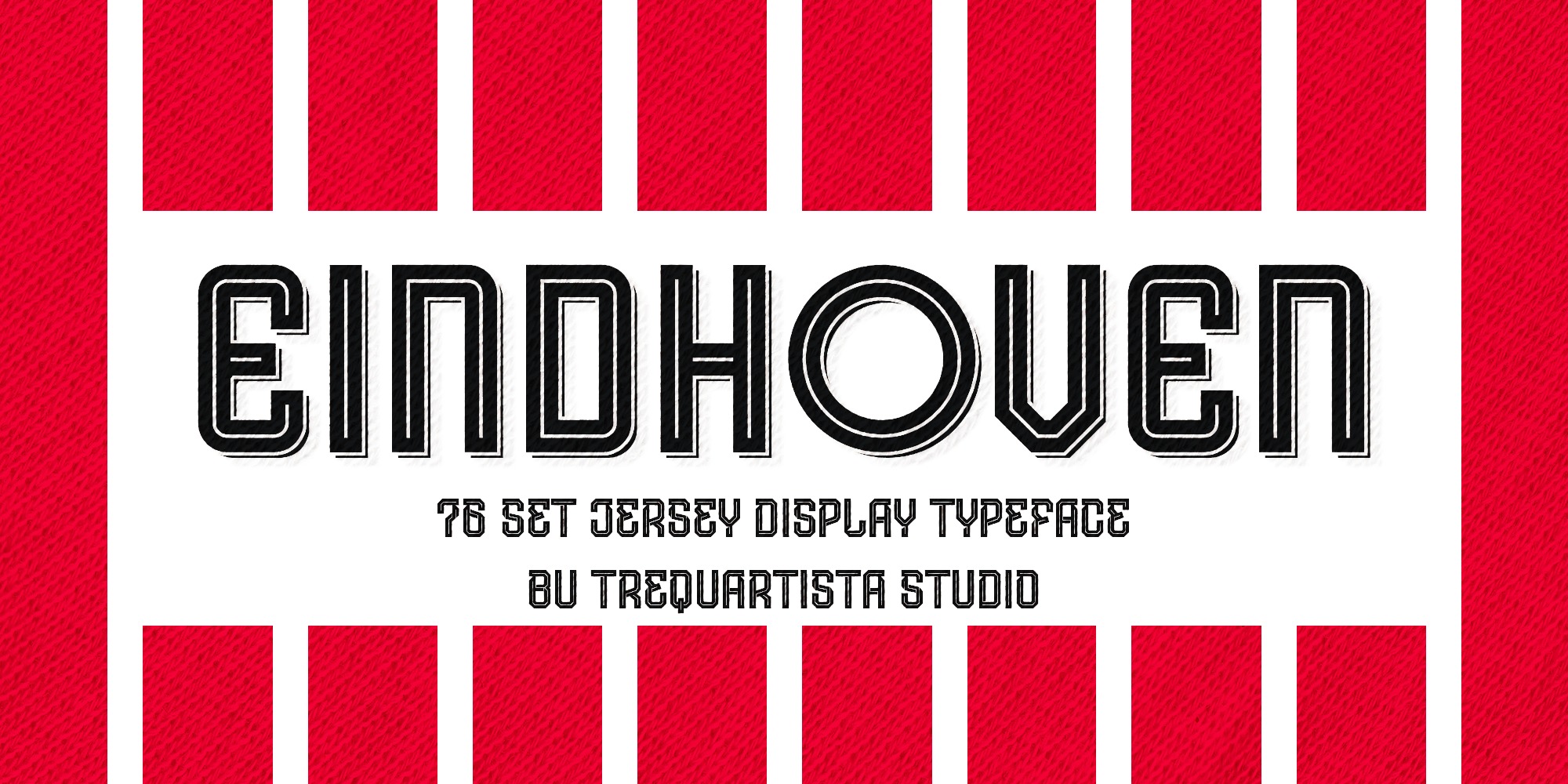
Eindhoven Font
Eindhoven Font is a premium-quality font developed to enhance your work with a polished, modern, and visually elevated look. Eindhoven is a versatile display typeface designed by Studio TRQ, featuring a family of personal-use styles with varied glyph sets for expressive, bold typography. With multiple styles included, this font brings a strong visual voice to sports, esports, branding, and headline design. Eindhoven’s character and energy make it great for creative projects that need impactful, attention-grabbing lettering.